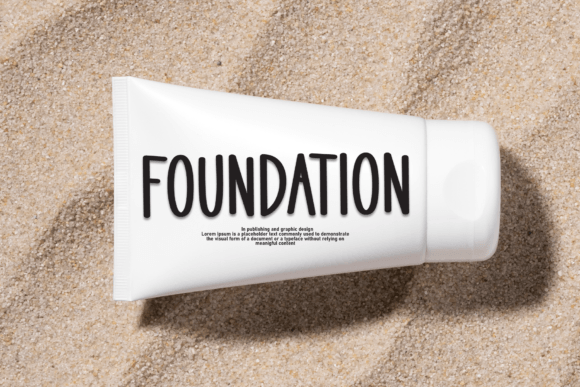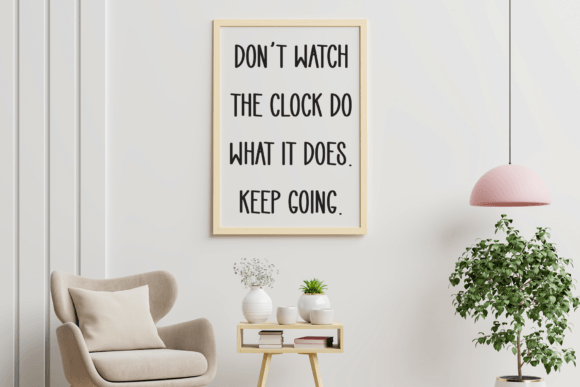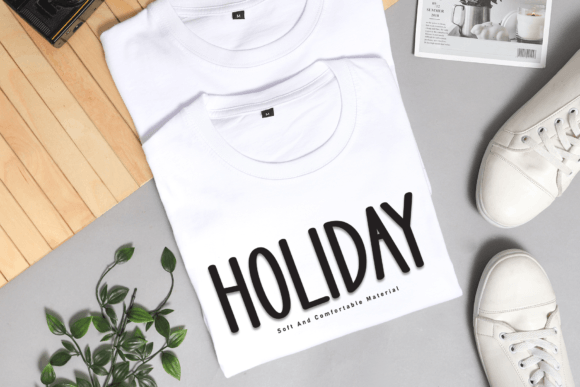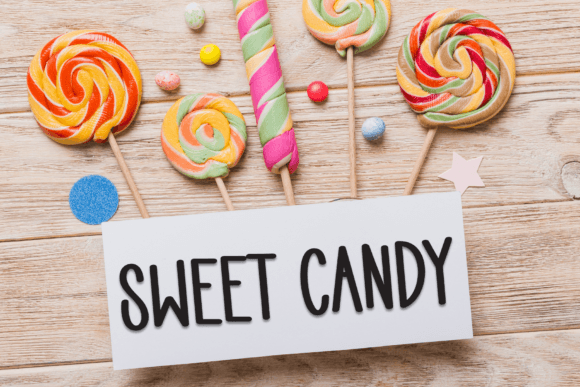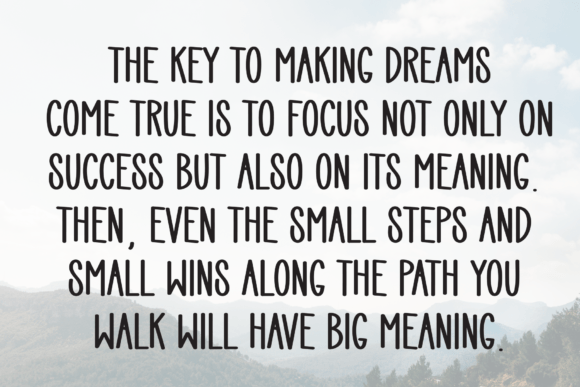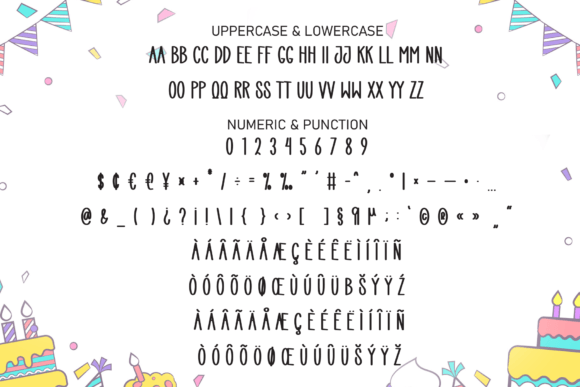
Happy Birthday Font: The Perfect Addition to Your Celebratory Designs
The “Happy Birthday” font is a bold, cheerful typeface that is sure to add a touch of festivity to any design. With its big, rounded letters that stand out, this font is perfect for making your birthday messages bright and celebratory. Whether you’re a designer, crafter, or simply someone who loves to create, the “Happy Birthday” font is a great addition to your toolkit.
What Makes the Happy Birthday Font So Special?
The “Happy Birthday” font is a unique and eye-catching typeface that is specifically designed to evoke the feeling of celebration and joy. Its bold, rounded letters are perfect for creating eye-catching headings and titles, and its cheerful vibe makes it ideal for use in birthday cards, invitations, and other celebratory designs.
Key Features of the Happy Birthday Font
- Bold and Cheerful: The “Happy Birthday” font is a bold and cheerful typeface that is sure to grab attention.
- Rounded Letters: The font features big, rounded letters that are perfect for creating a friendly and approachable feel.
- Perfect for Celebratory Designs: The “Happy Birthday” font is specifically designed for use in birthday messages and other celebratory designs.
- Easy to Read: The font is clear and easy to read, making it perfect for use in a variety of designs.
How to Use the Happy Birthday Font in Your Designs
The “Happy Birthday” font is a versatile typeface that can be used in a variety of designs, from birthday cards and invitations to party decorations and social media posts. Here are a few ideas for using the “Happy Birthday” font in your designs:
- Birthday Cards: Use the “Happy Birthday” font to create eye-catching birthday cards that are sure to impress.
- Invitations: Add a touch of festivity to your party invitations with the “Happy Birthday” font.
- Party Decorations: Use the font to create festive party decorations, such as banners and garlands.
- Social Media Posts: Add a celebratory touch to your social media posts with the “Happy Birthday” font.
Tips for Getting the Most Out of the Happy Birthday Font
Here are a few tips for getting the most out of the “Happy Birthday” font:
- Use it Sparingly: While the “Happy Birthday” font is perfect for celebratory designs, it can be overwhelming if used too much. Use it sparingly to create a bold and eye-catching effect.
- Pair it with Other Fonts: The “Happy Birthday” font pairs well with a variety of other fonts, including script fonts and sans-serif fonts.
- Experiment with Colors: The “Happy Birthday” font looks great in a variety of colors, from bright and bold to pastel and soft.
The “Happy Birthday” font is a bold, cheerful typeface that is perfect for making your birthday messages bright and festive. With its big, rounded letters and cheerful vibe, this font is sure to add a touch of celebration to any design. Whether you’re a designer, crafter, or simply someone who loves to create, the “Happy Birthday” font is a great addition to your toolkit.